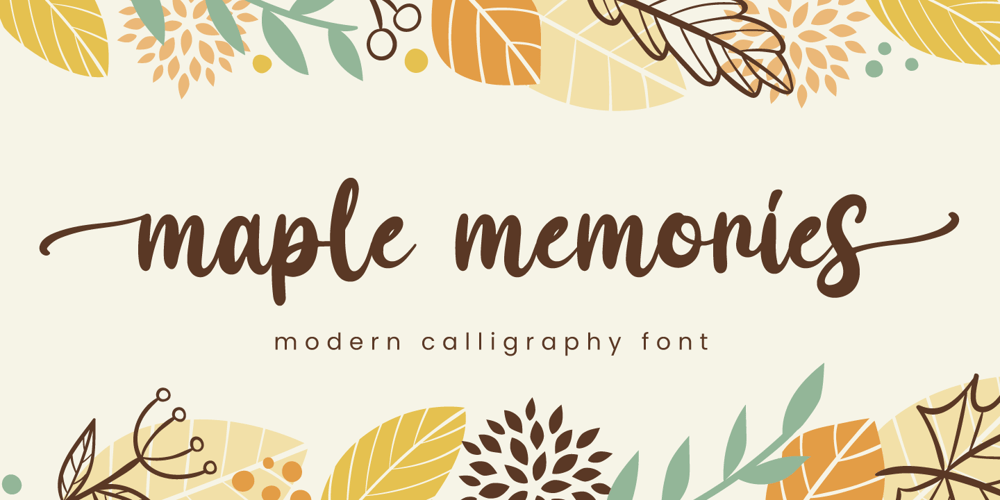
Maple Memories
Maple Memories font
Maple Memories Font Family was designed by Fadli Ramadhan Iskandar and published by Attype Studio. Maple Memories contains 1 styles and family package options. Maple Memories is a delicate and incredibly handwritten font. Fall in love with its incredibly versatile style and use it to create spectacular designs!What’s Included :- Beginning & Ending Swash- Multilingual Support (Afrikaans, Albanian, Catalan, Danish, Dutch, English, Estonian, Finnish, French, German, Icelandic, Italian, Norwegian, Portugese, Spanisch, Swedish, Zulu)